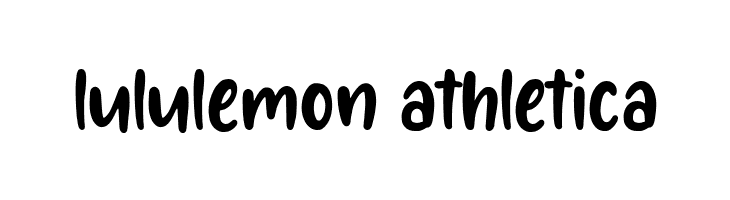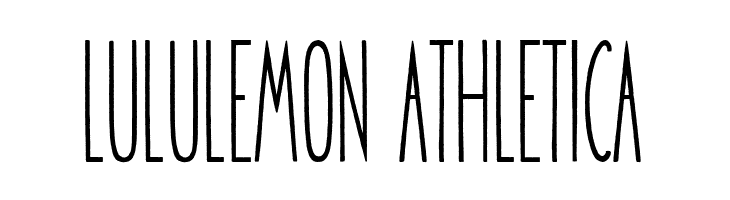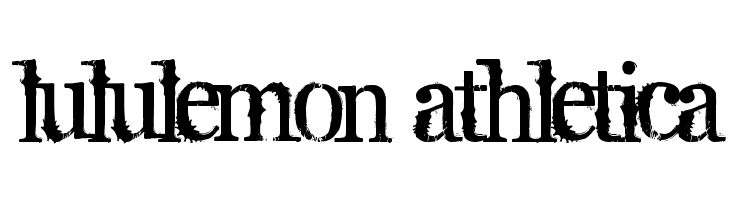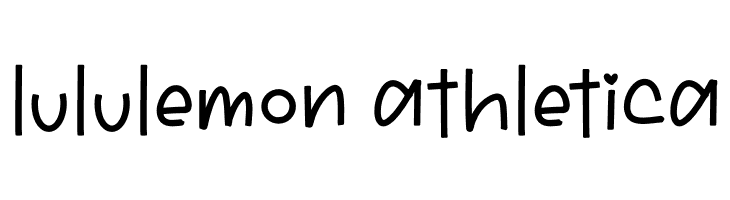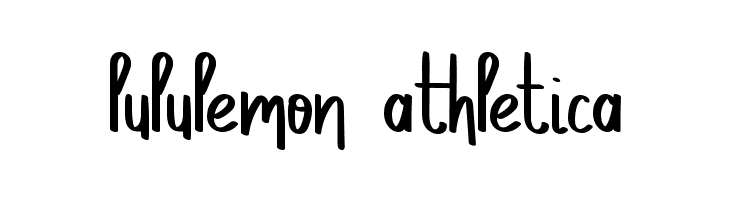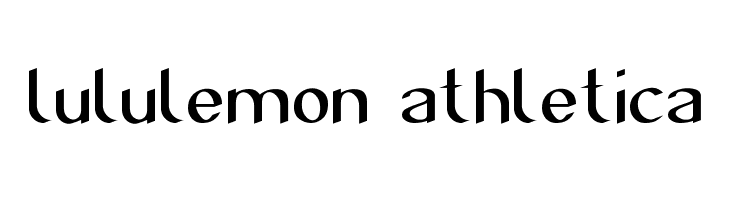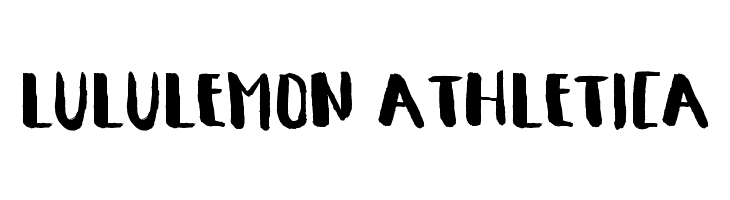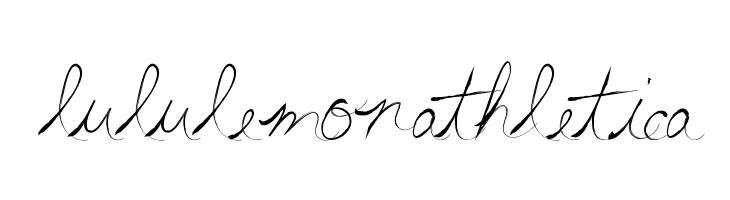
( Fonts by Leonard Posavec )
A bold, brush-style font with a hand-painted, artistic appearance.
A whimsical and elegant script font with flowing, dynamic strokes.
A playful, handwritten font with a whimsical and friendly style.
A playful, bold handwritten font with smooth, rounded edges and a casual feel.
( Fonts by Johan Wibisono )
A playful, hand-drawn font with tall, narrow letters and a whimsical style.
A tall, narrow font with a modern and sleek design.
A bold, distressed font with a grunge aesthetic.
A modern, creative font with bold uppercase and elegant lowercase letters.